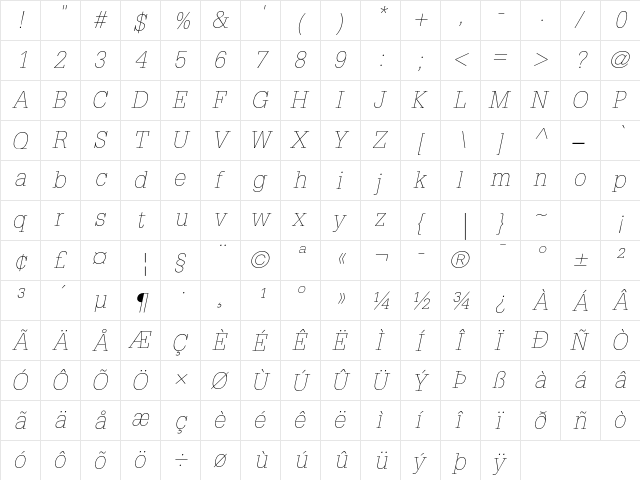
Glypha LT Std 35 Thin Oblique
35 Thin Oblique ·  Adrian Frutiger ·
Design Context for Glypha LT Std Typeface
Glypha LT Std takes a measured approach to typography — its balanced proportions and neutral character make it a reliable workhorse for both digital and print work. The dynamic lean of this cut emphasises speed and emphasis in any layout. Its slender proportions lend an understated elegance to any composition.
Pro Tip: Use Glypha LT Std for emphasis, pull quotes, and subheadings where its slanted energy can add rhythm to the layout.